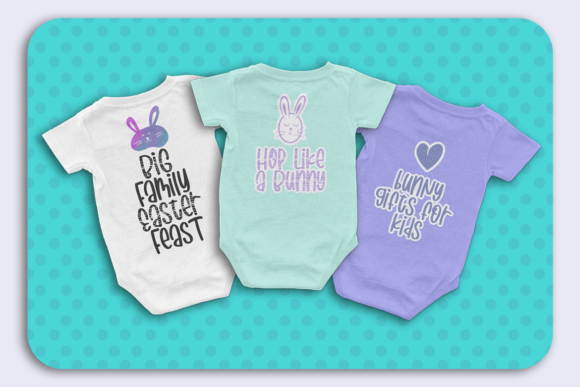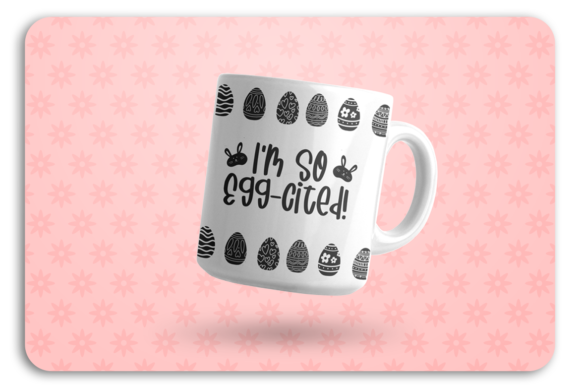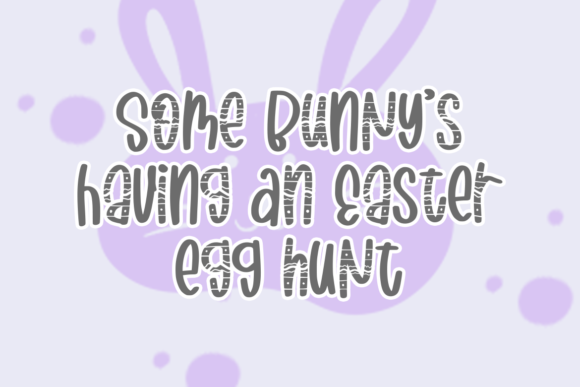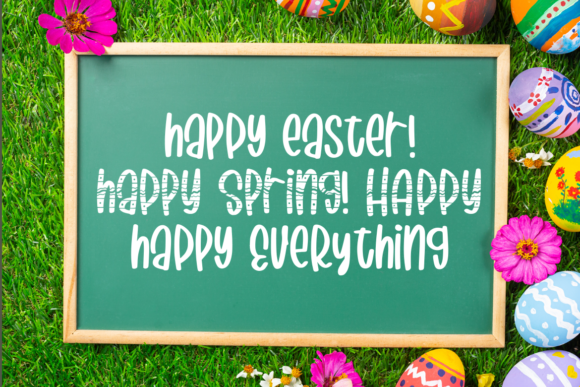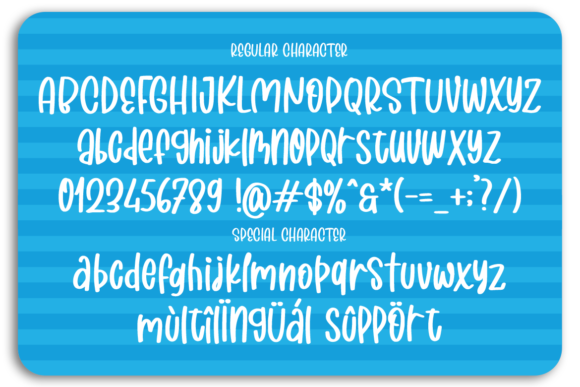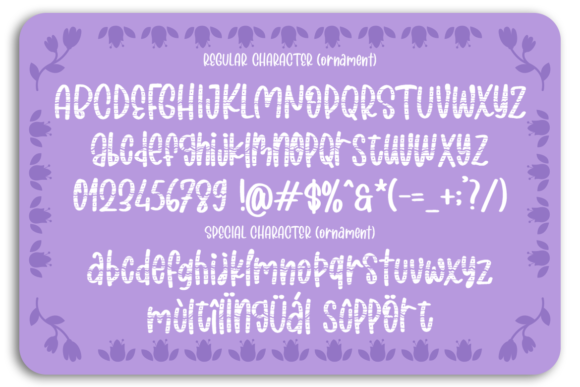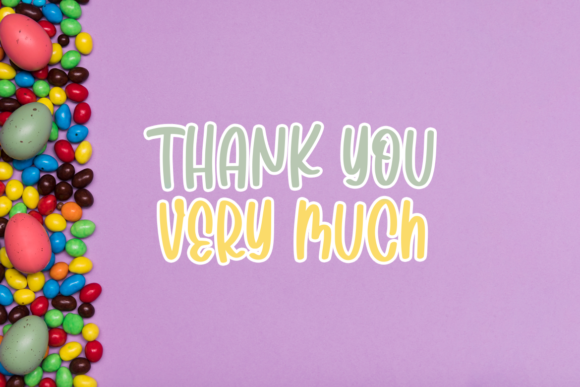
Blaster Easter Font
About Blaster Easter Font
Blaster Easter is a casual and smooth handwritten font. It has a playful feel that will turn any Easter and spring crafting idea into a true standout. This font is PUA encoded which means you can access all of the glyphs and swashes with ease!